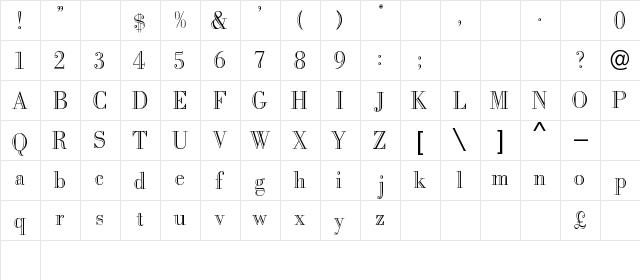
Faust Regular
Design Context for Faust Typeface
Faust offers clean, dependable letterforms without strong stylistic allegiance, making it a practical choice for designers who need flexibility.